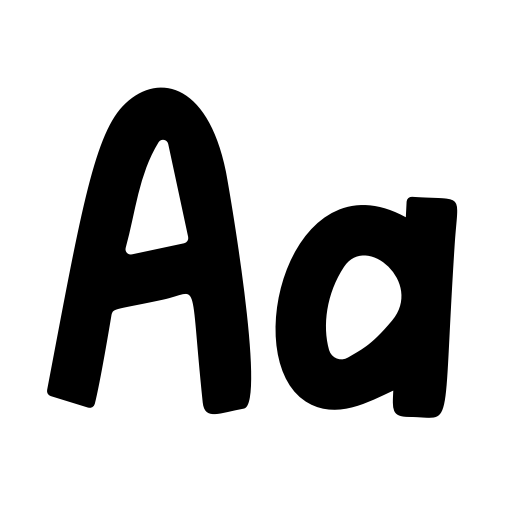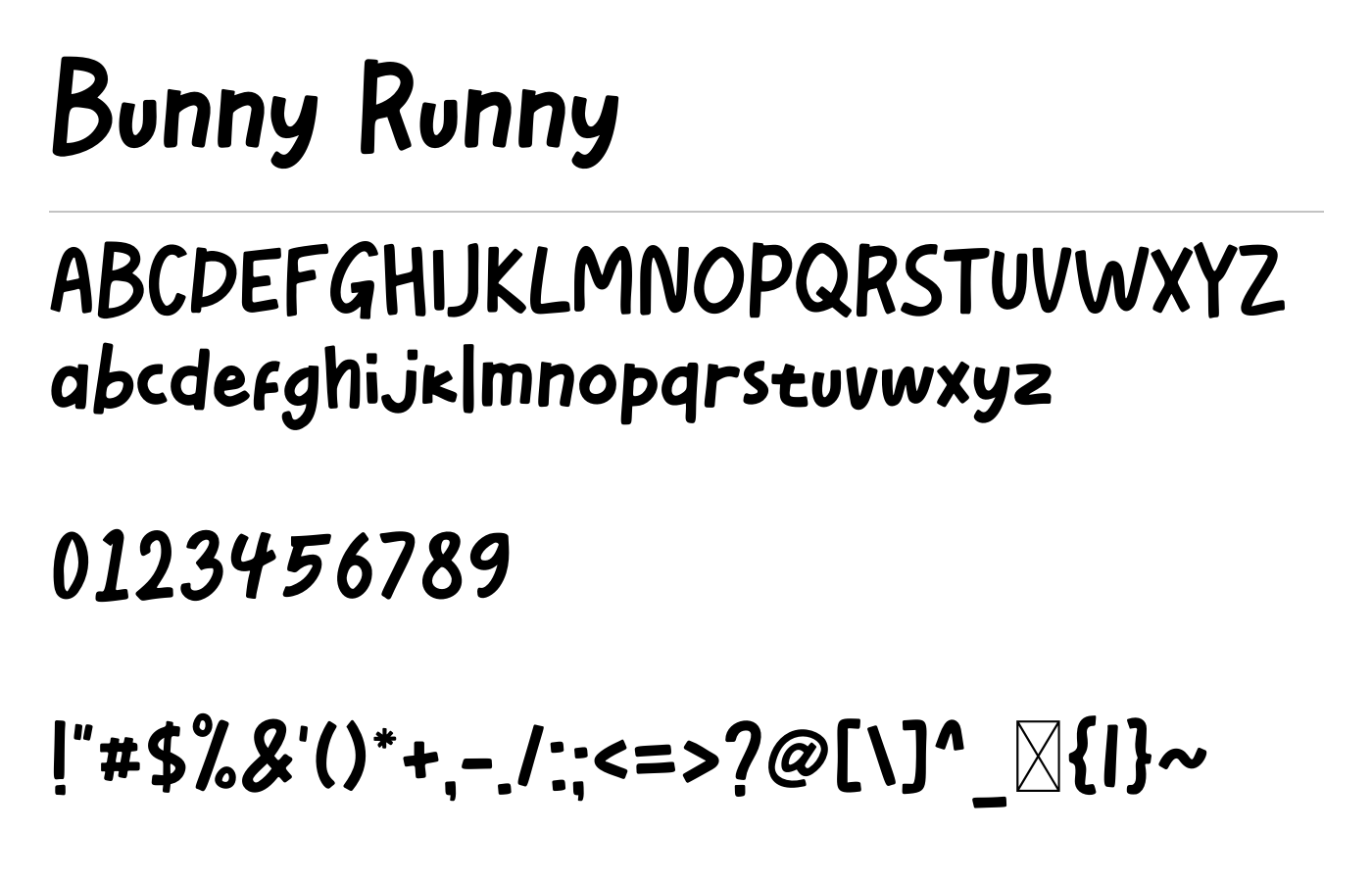
Bunny Runny is a playful and casual sans serif font with a hand-drawn feel. Its rounded, irregular letterforms and moderate x-height create a friendly, approachable vibe, making it perfect for informal designs like children’s books, fun branding, and lively headlines. This font's energetic style adds a whimsical touch, ideal for projects that want to convey warmth and creativity.
Bunny Runny Font
About Bunny Runny Font
| Font family | Bunny Runny Font |
| Designer | Olalatype Studio |